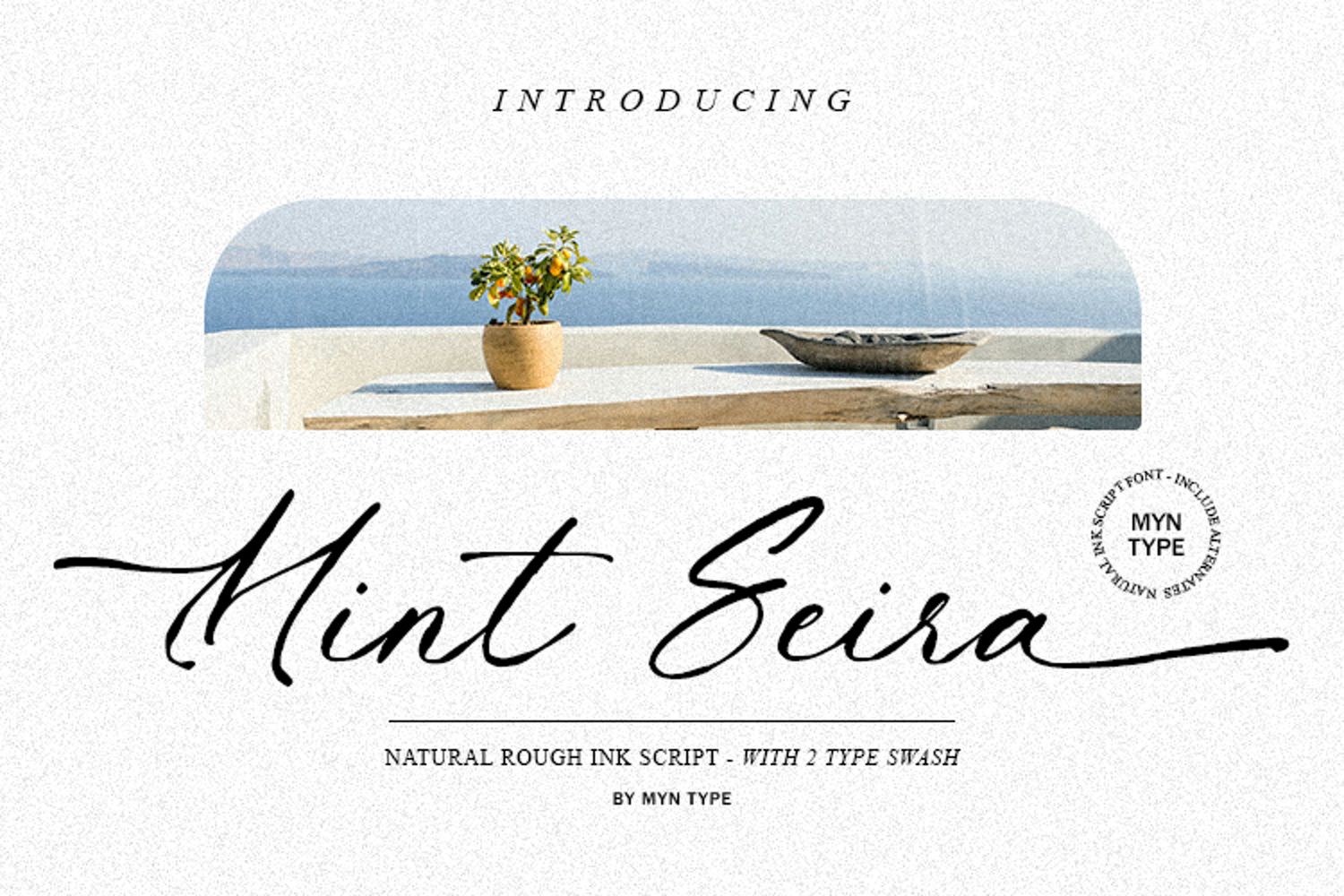
Mint Seira - Charm Handwritten Font
Mint Seira
Mint Seira is a beautifully crafted handwritten script font that exudes natural elegance and personality. Featuring natural scratches, flowing strokes and subtle imperfections, this font captures the essence of genuine handwriting. The added swashes provide a touch of sophistication, perfect for making your designs stand out with flair.
Ideal for wedding invitations, logos, branding projects, display product, invitation design, social media posts, and more, this font effortlessly blends charm and versatility. With its organic feel and stylish extras, Mint Seira is your go-to choice for creating designs that are as unique as they are timeless.